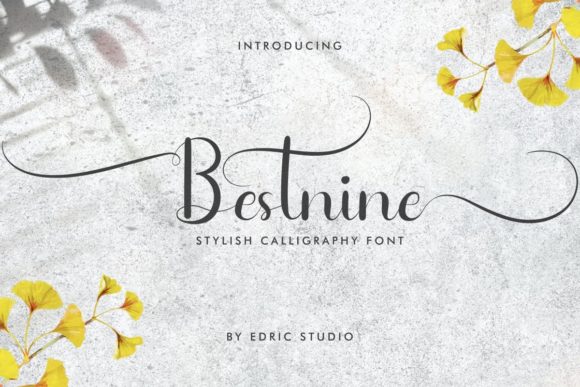
The Bestnine Font: A Delicate Script to Elevate Your Designs
Have you ever been in the middle of a design project, and suddenly, you just can’t seem to find the right font? I know I have. It was a few months ago when I was working on a wedding invitation design for a client. She wanted something elegant, classy, and unique. I scoured through my font library, but nothing seemed to fit the bill. That’s when I stumbled upon the Bestnine font. ✨
As soon as I saw it, I knew I had found what I was looking for. Bestnine is a lovely and delicate script font that exudes elegance and class. This font was particularly crafted for those who need a beautiful and refreshing look to their designs. And the best part? It’s PUA encoded, which means you can access all of the glyphs and swashes with ease! ✅
• ✨ Delicate and elegant script style that’s perfect for wedding invitations, branding, and more
• 🌈 Beautifully crafted to add a touch of sophistication to any design
• 📚 Highly versatile and can be used for a variety of design projects
While I absolutely love the Bestnine font, there are a few things to keep in mind. 🤔
• ⚠️ Some users may find the font a bit too delicate for certain design projects
• ⚠️ May not be suitable for body text due to its script nature
The Story Behind Bestnine
The Bestnine font was designed with elegance and sophistication in mind. The designer wanted to create a font that would add a touch of class to any design project. With its delicate script style and PUA encoding, Bestnine is perfect for designers, crafters, and creative hobbyists who want to elevate their designs.
A: PUA (Private Use Area) encoding is a way to access additional characters and glyphs in a font. It’s commonly used in script fonts to provide more flexibility and customization options.
Q: Is Bestnine suitable for body text?
A: While Bestnine is a beautiful font, it’s not recommended for body text due to its script nature. It’s best used for headings, titles, and other display text.